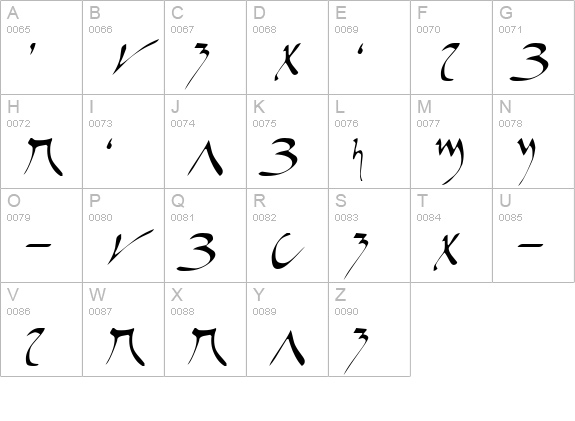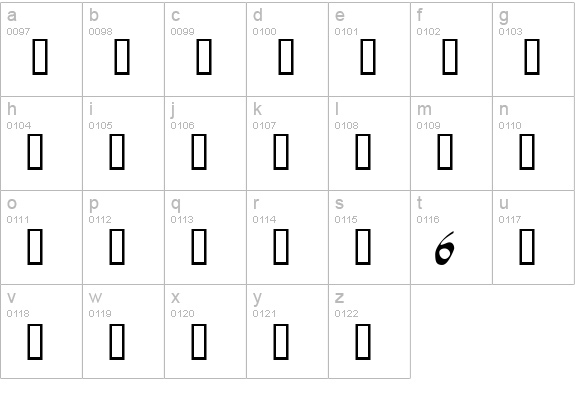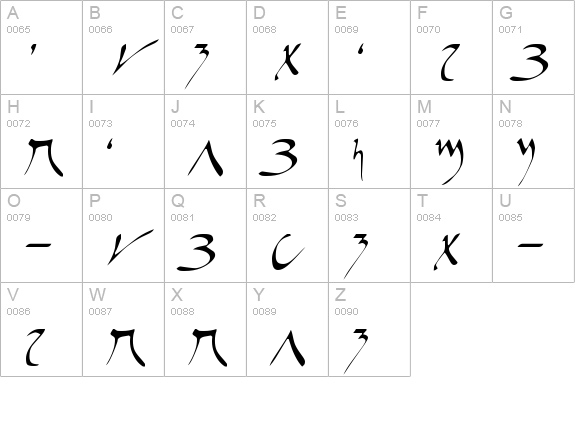
Introducing Kathasa, a captivating and elegant font that effortlessly combines modern aesthetics with a hint of classic charm. With its delicate and graceful letterforms, Kathasa captures the essence of sophistication and refinement. This versatile typeface is perfect for a wide range of design projects, including branding, invitations, logos, and more. What makes Kathasa truly remarkable is not only its stunning visual appeal, but also the fact that it is completely free. That's right - this exceptional font can be downloaded at no cost from FontsMarket.com. Now, you can elevate your designs without breaking the bank. Kathasa offers a diverse range of characters, including uppercase and lowercase letters, numbers, punctuation marks, and multilingual support. Its smooth curves and precise details lend a touch of elegance to any project, while its legibility ensures readability across various mediums. Whether you're designing a wedding invitation, creating a logo for a high-end brand, or adding a touch of sophistication to your website, Kathasa is the perfect choice. Its timeless beauty and effortless versatility will make your designs stand out from the crowd. Download Kathasa for free at FontsMarket.com and unlock a world of endless possibilities. Elevate your design game with this stunning font, and let your creativity soar. With Kathasa, you have the power to captivate and inspire.